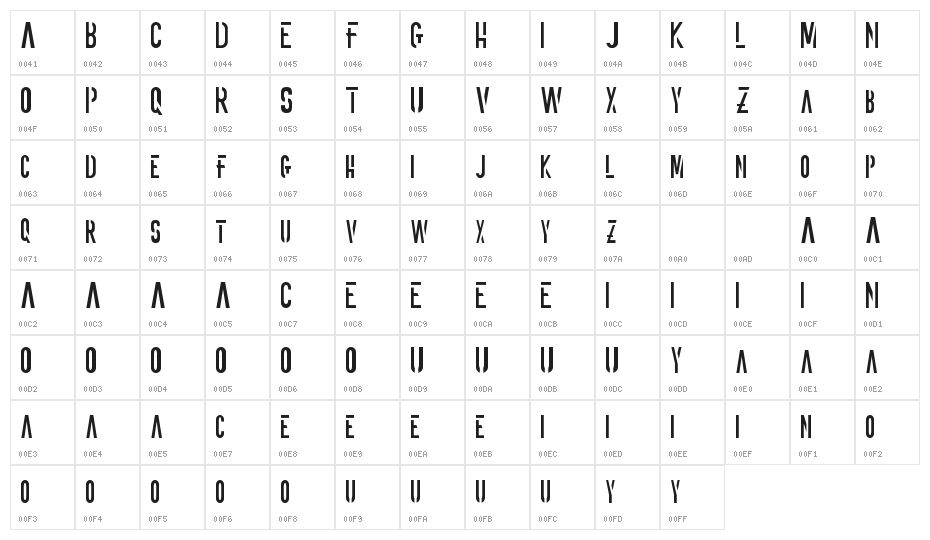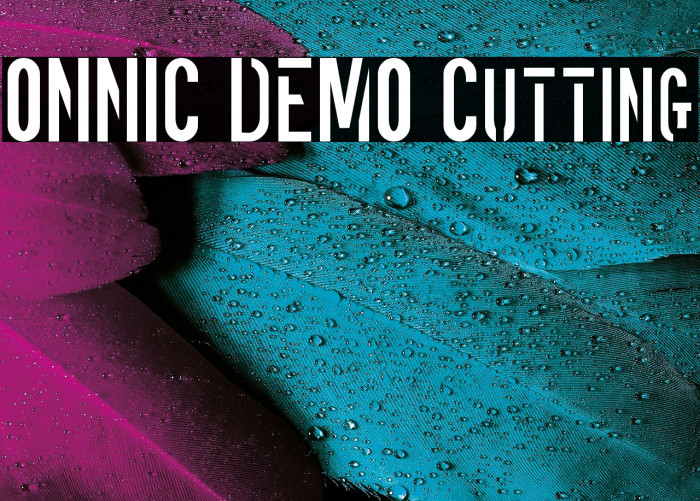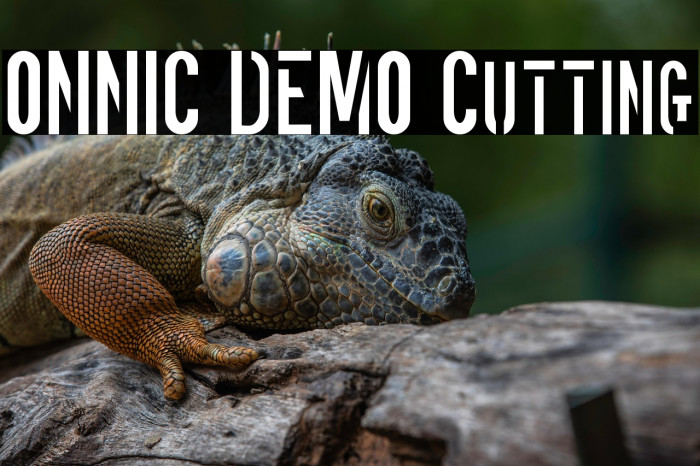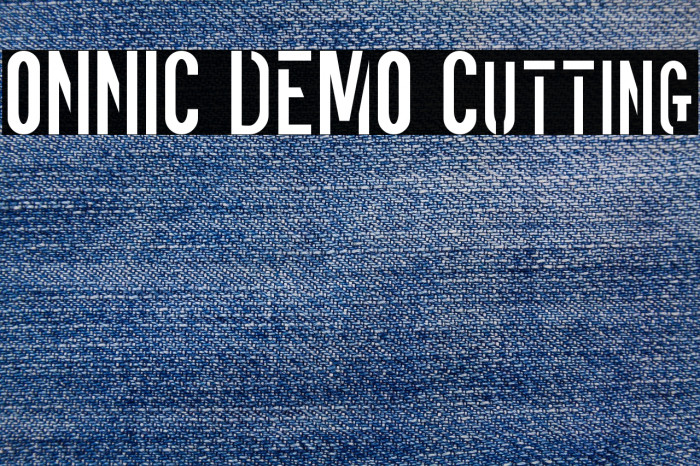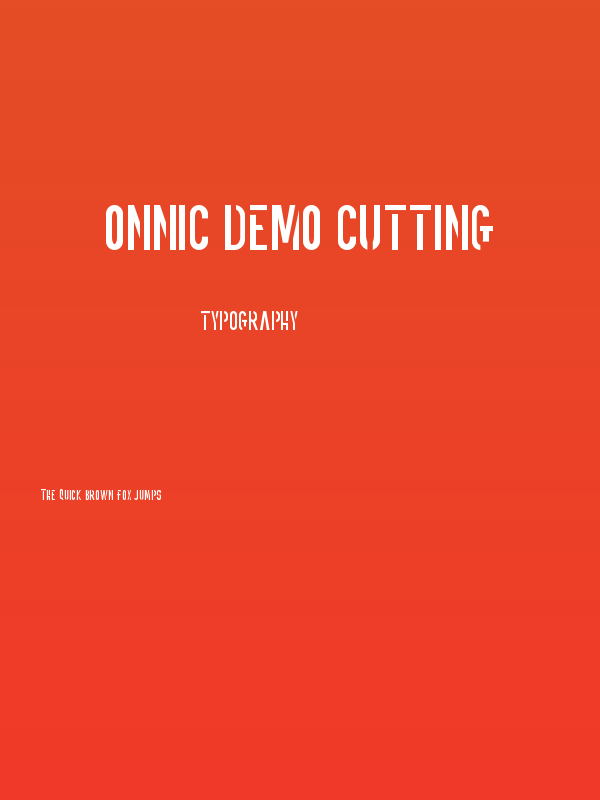
ONNIC DEMO Cutting Font
ONNIC DEMO Cutting Description
This font features a bold and striking design with sharp, angular lines and a geometric structure. The uppercase letters are particularly distinctive, with unique cut-out sections that create a modern and edgy appearance. The characters are uniformly tall and narrow, giving the font a condensed look. The overall style is highly decorative, making it suitable for attention-grabbing headlines or logos. The font's high contrast between thick and thin strokes adds to its dramatic effect, while the tight character spacing enhances its compact and impactful presentation.
| Proposed Projects | This font is perfect for projects that require a modern and bold aesthetic, such as branding, poster design, album covers, or any creative work that aims to make a strong visual impact. |